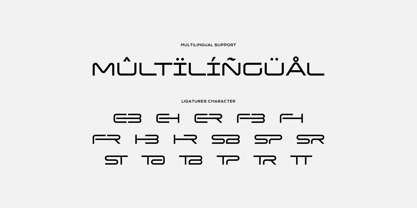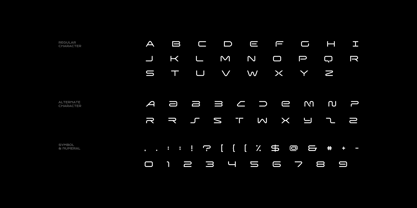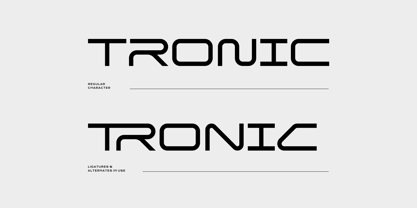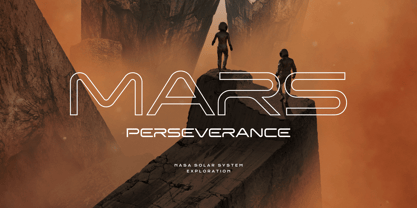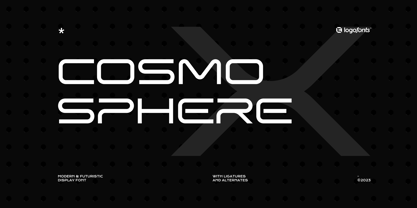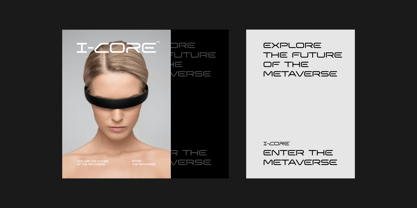
Cosmo Sphere
by Logofonts
The Cosmo Sphere Font Family was designed by Anna Safitri and published by Logofonts. Cosmo Sphere contains 1 styles. More about this family
Cosmo Sphere is a sleek and modern futuristic sans-serif font, designed to embody cutting-edge technology and innovation. With its clean, geometric lines and minimalist structure, this typeface seamlessly blends style and functionality, making it perfect for digital, tech, and sci-fi themed projects. The balanced letterforms exude clarity and precision, while the sharp, forward-thinking aesthetic adds an unmistakable sense of progression. Ideal for user interfaces, branding, and any design where a contemporary, bold look is essential, this font pushes the boundaries of design with its timeless, forward-facing appeal.
Designers: Anna Safitri
Foundry: Logofonts